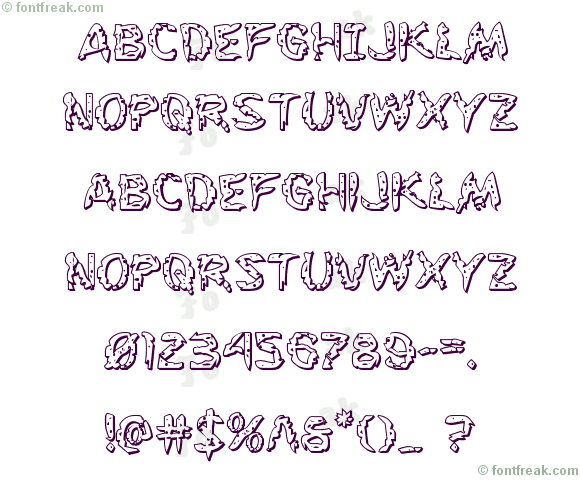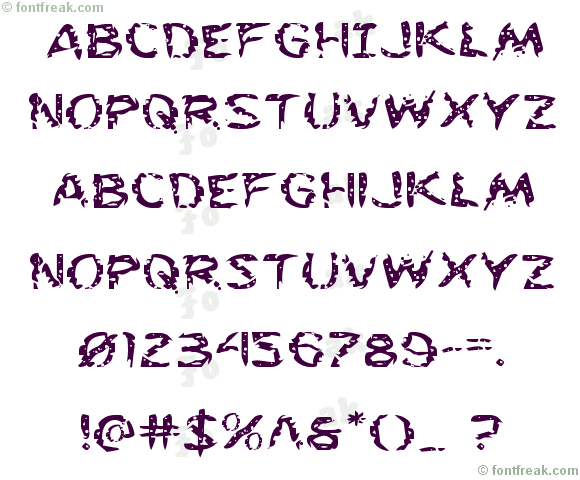
Flesh-Eating Comic Expanded
Flesh-Eating Comic Italic
Flesh-Eating Comic Bold
Flesh-Eating Comic Regular
Flesh-Eating Comic Expanded Italic
Flesh-Eating Comic Condensed
Flesh-Eating Comic 3D Regular
Flesh-Eating Comic Whacked Italic
Flesh-Eating Comic Bold Italic
Flesh-Eating Comic Condensed Italic
Flesh-Eating Comic Whacked Regular
Flesh-Eating Comic 3D Italic
Flesh-Eating Comic Leftalic
Flesh-Eating Comic Expanded is a unique display font designed by Daniel Zadorozny, falling within the comic style category. This font features a distinctive, playful design that captures attention with its irregular, jagged edges that evoke a sense of whimsy and fun. The stroke weight varies throughout the characters, giving it an organic, hand-drawn feel. The spacing is intentionally irregular, enhancing the chaotic aesthetic, while the bold and italic variations add versatility for different design needs. Its 3D effect further amplifies its visual impact, making it suitable for eye-catching applications.
This font is ideal for various creative projects, including movie posters that aim to convey a sense of humor or horror, comic book covers seeking to attract a younger audience, and Halloween-themed invitations that require a playful yet spooky vibe. Restaurant menus with a quirky theme can also benefit from its distinctive style, providing an engaging visual element that enhances the overall dining experience. Content creators looking to add a touch of personality to their digital graphics will find this font particularly appealing.
What sets the Flesh-Eating Comic Expanded font apart is its ability to blend humor with a slightly eerie aesthetic, making it perfect for projects that aim to entertain while captivating the audience's attention. Whether you're looking to make a bold statement or simply want to add a fun twist to your designs, this font is an excellent choice. Don’t miss out on the Flesh-Eating Comic Expanded font free download to elevate your creative projects.